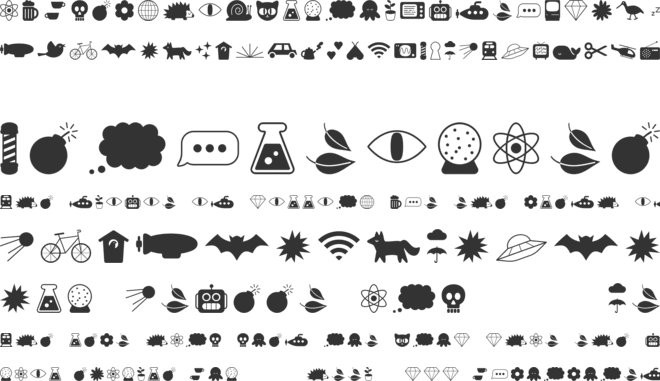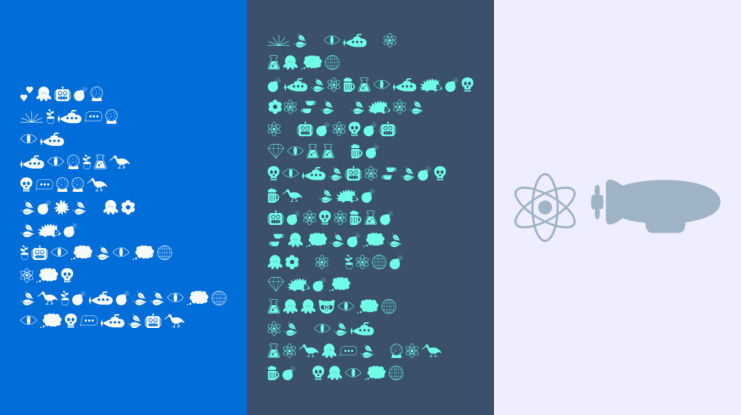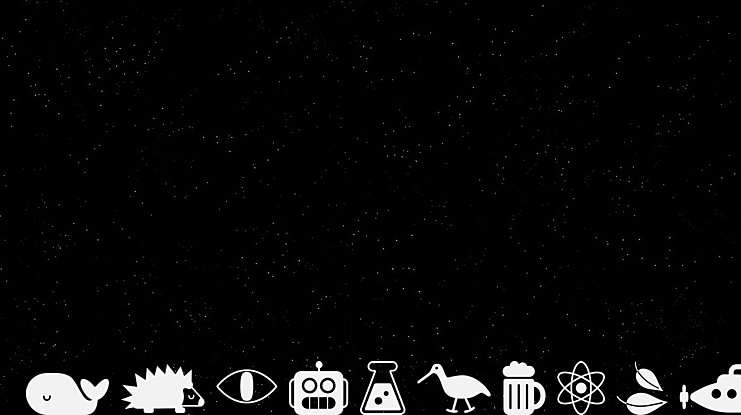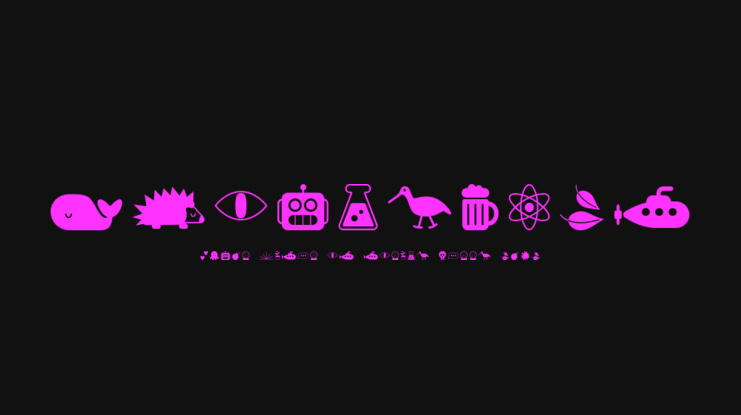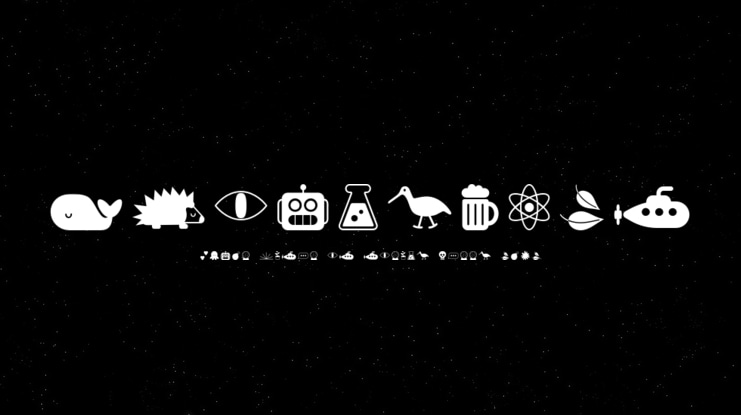
Whirlybats Font
Alex Tomlinson
Whirlybats is a dingbat font with a twist. Instead of using variable font technology to squish and squash type, Whirlybats uses it to animate its 200+ glyphs.